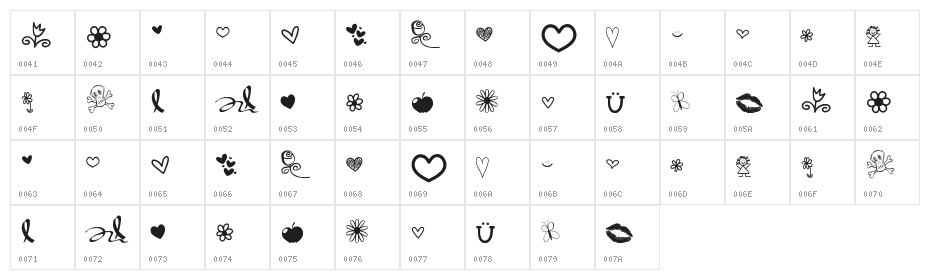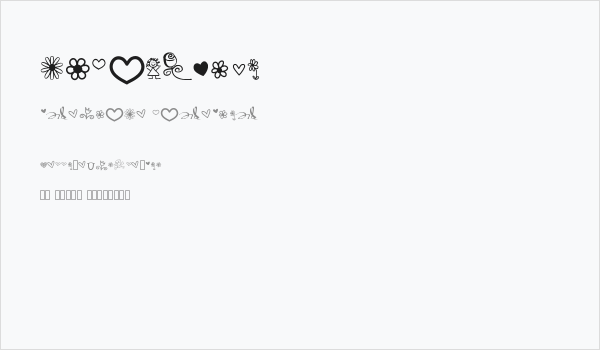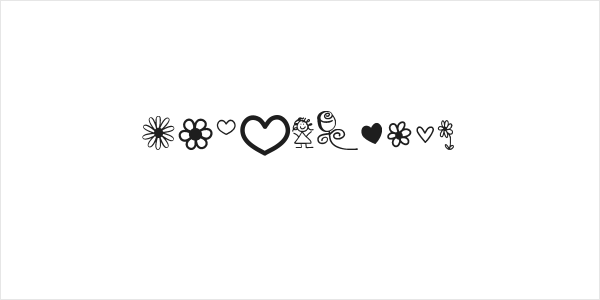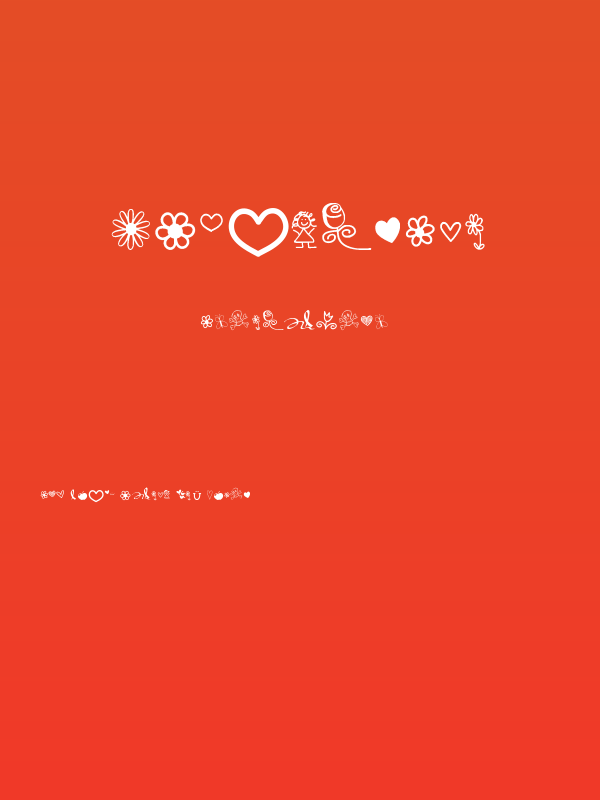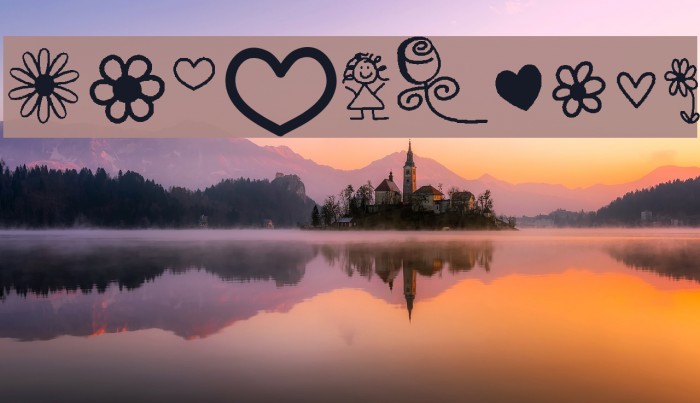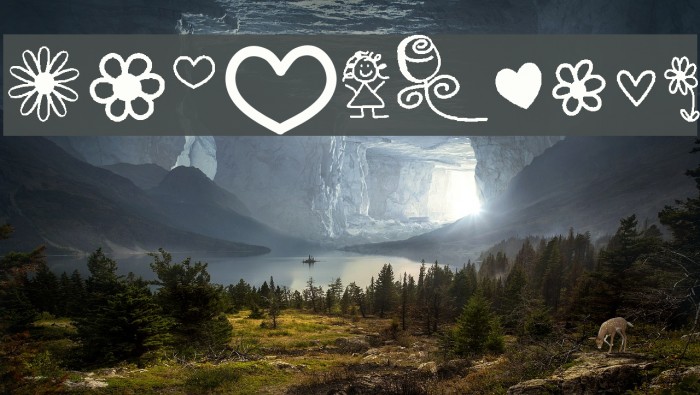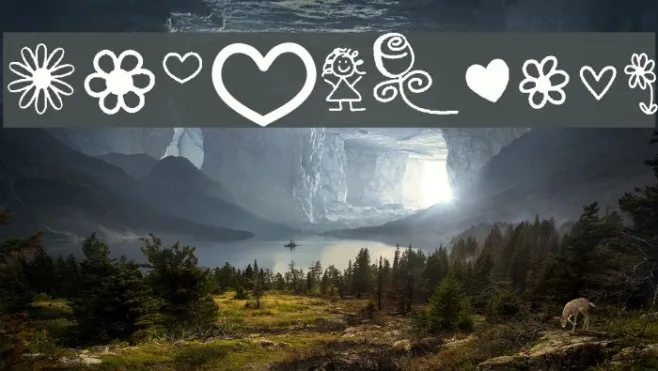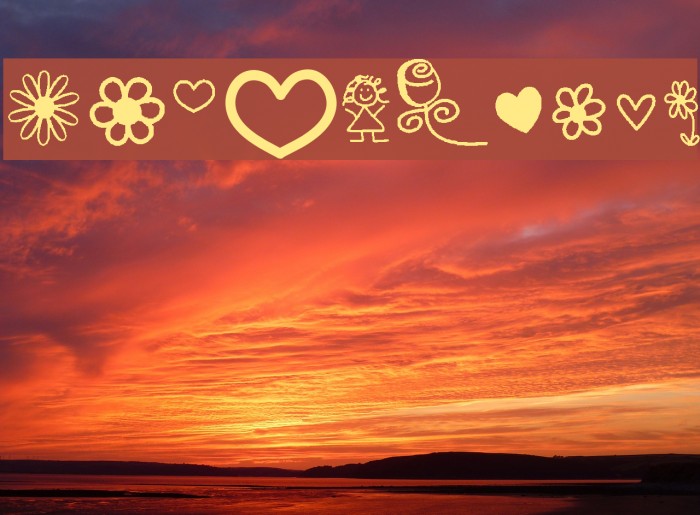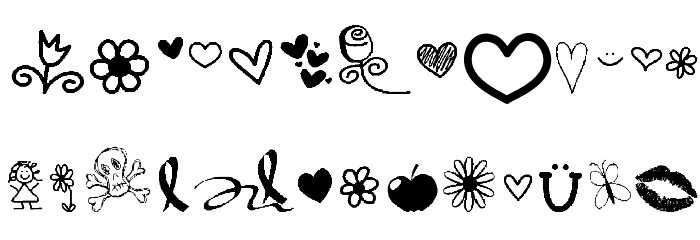
VBdingsTwo Font
VBdingsTwo Description
This collection features a whimsical array of decorative symbols and playful icons. The designs include a variety of hearts, flowers, and abstract shapes, each with a unique and charming style. The icons are bold and expressive, with a hand-drawn aesthetic that adds a personal touch. The elements are perfect for adding a fun and creative flair to any project, offering a diverse range of symbols that can be used in various contexts. The style is consistent throughout, with a focus on simplicity and bold outlines, making each icon easily recognizable and visually appealing.
| Use Case | Decorative elements, Craft projects |
| Proposed Projects | Ideal for greeting cards, scrapbooking, digital art, and playful branding projects. |